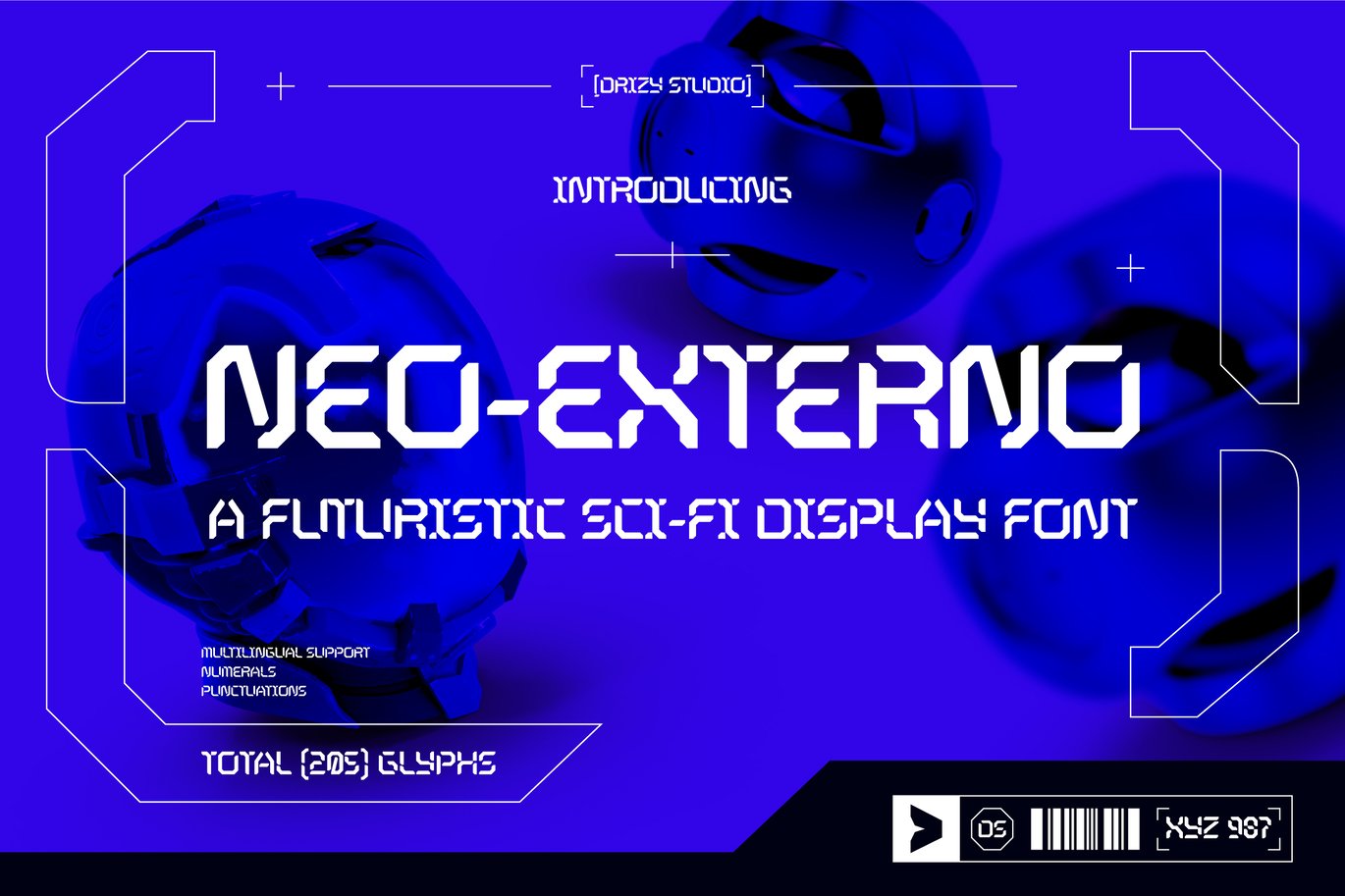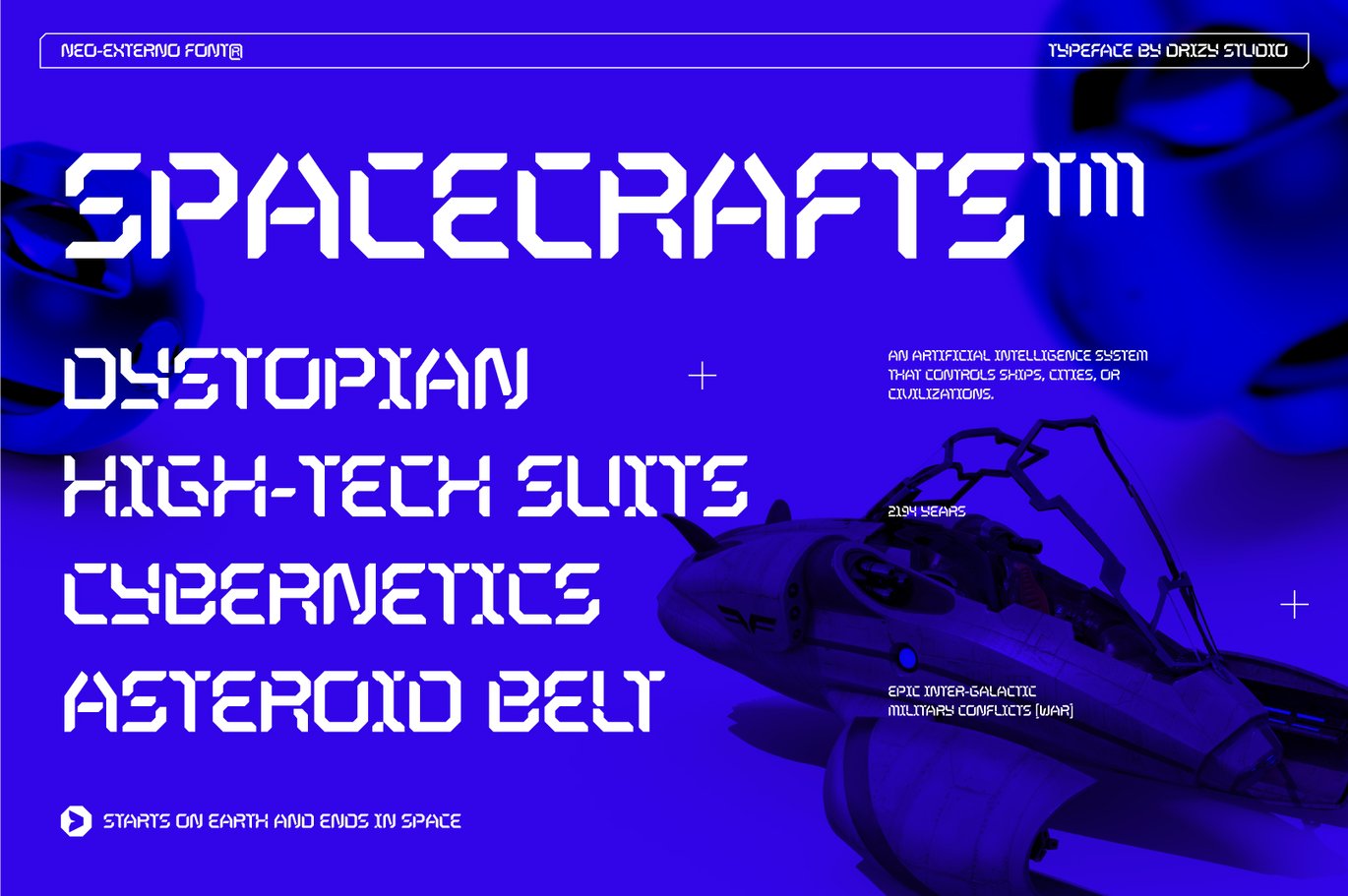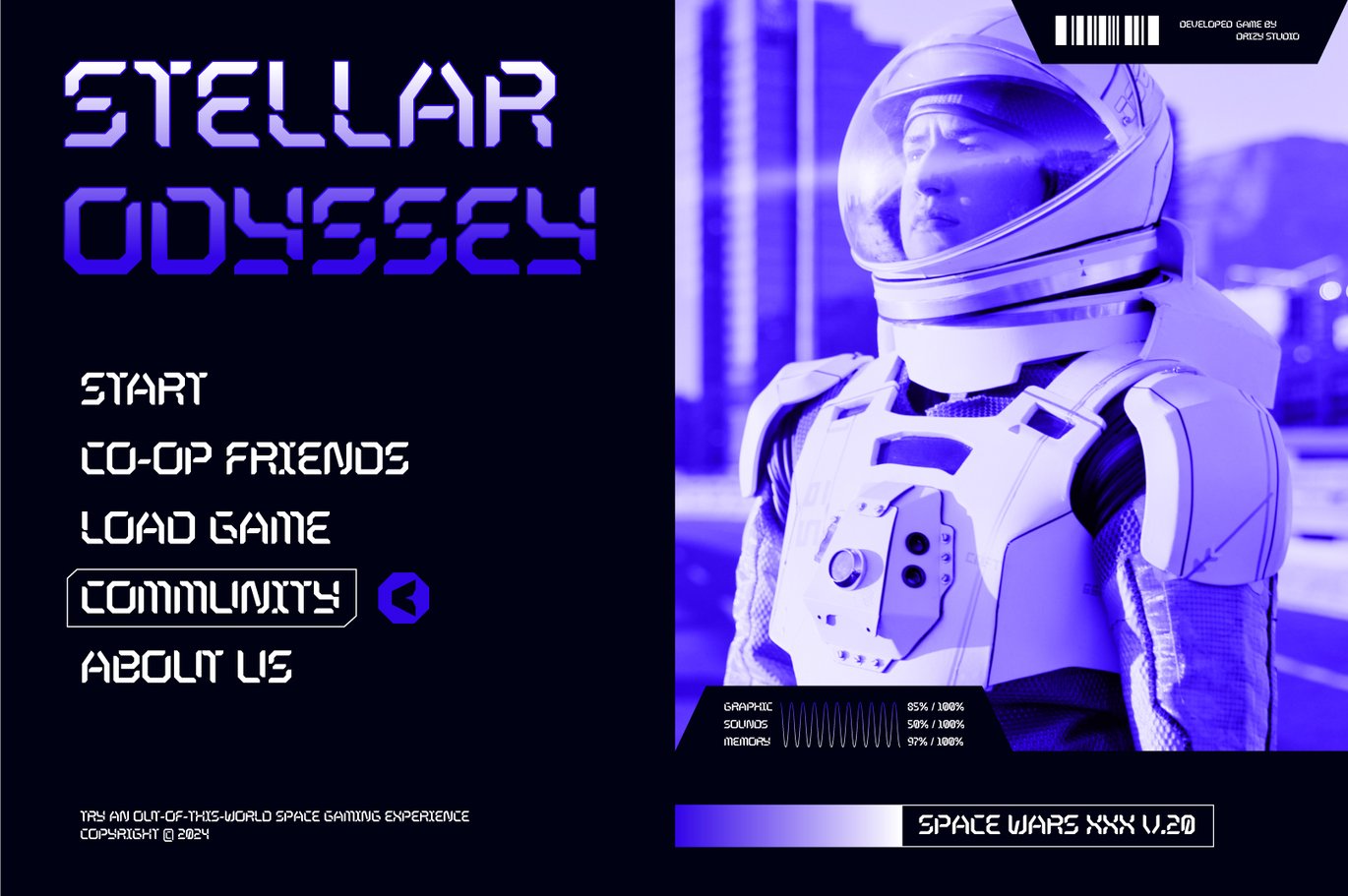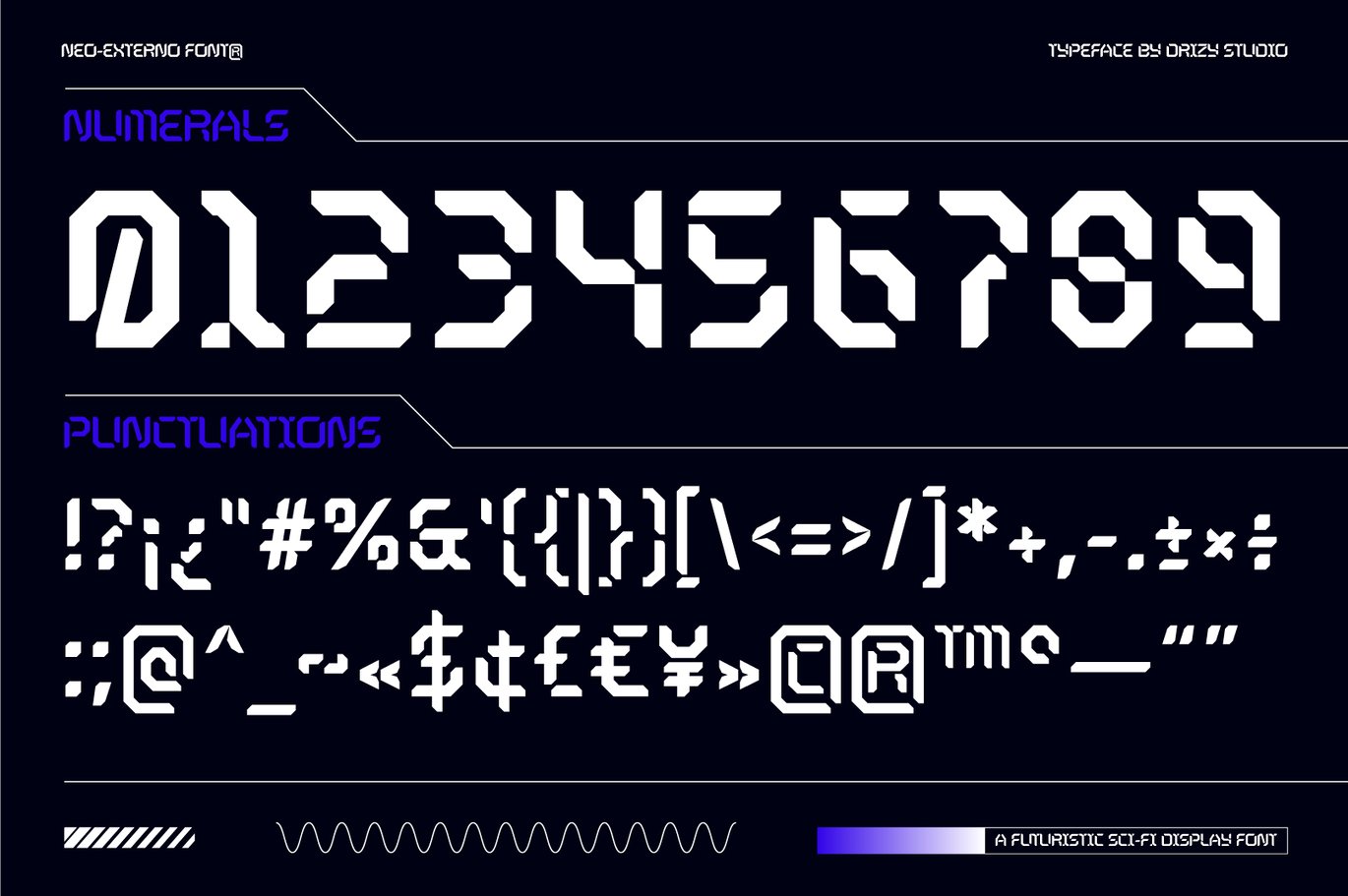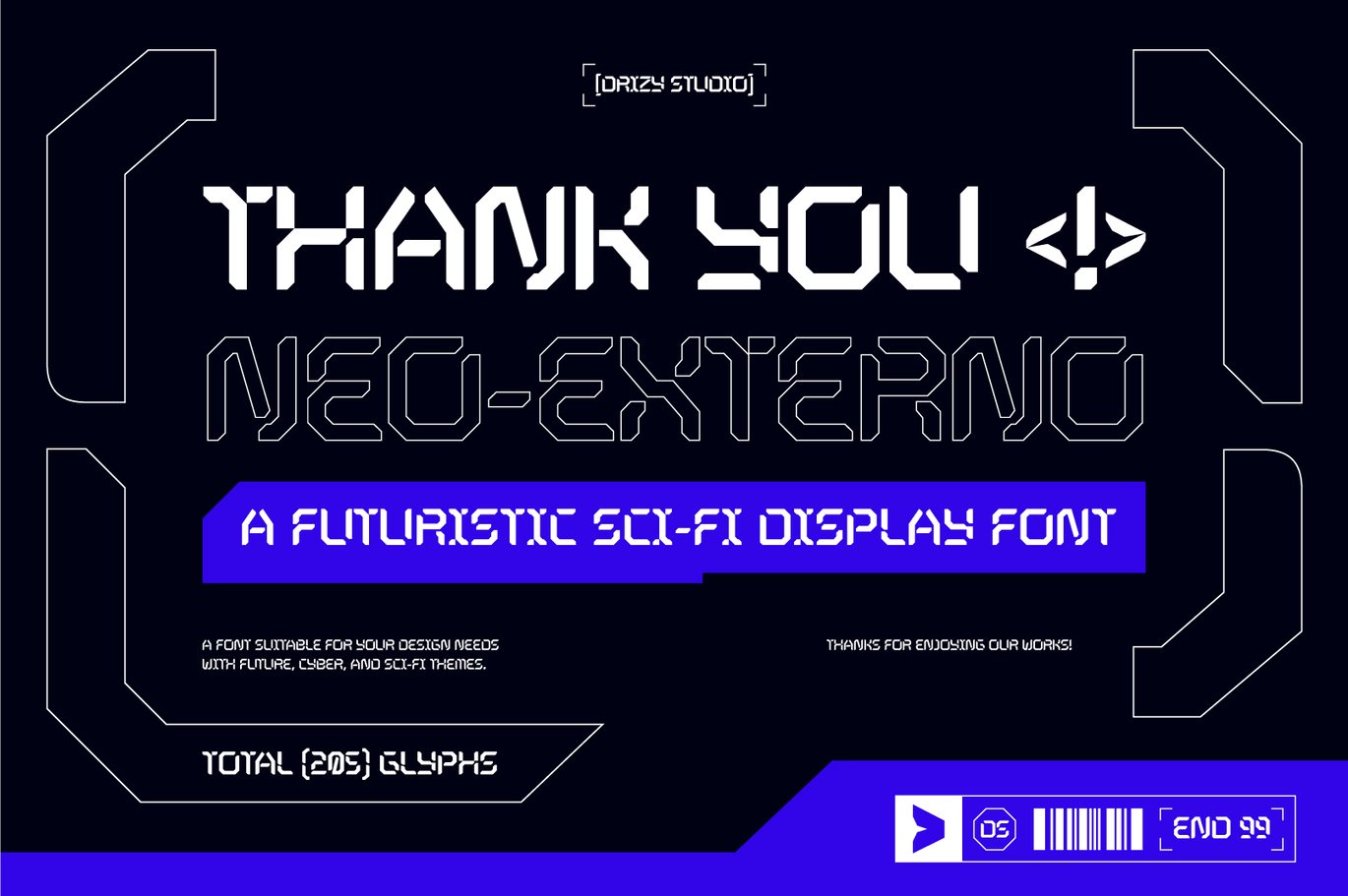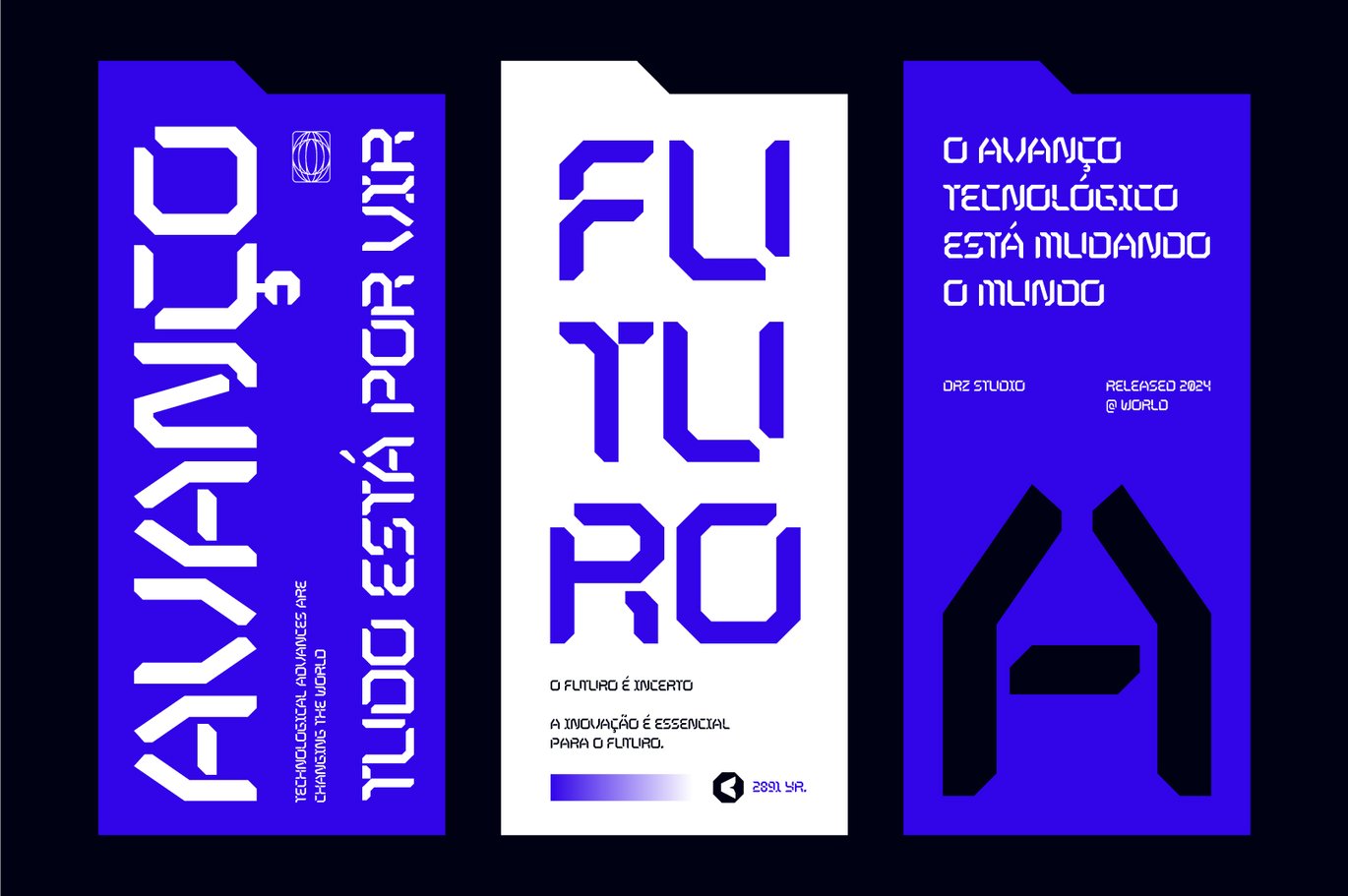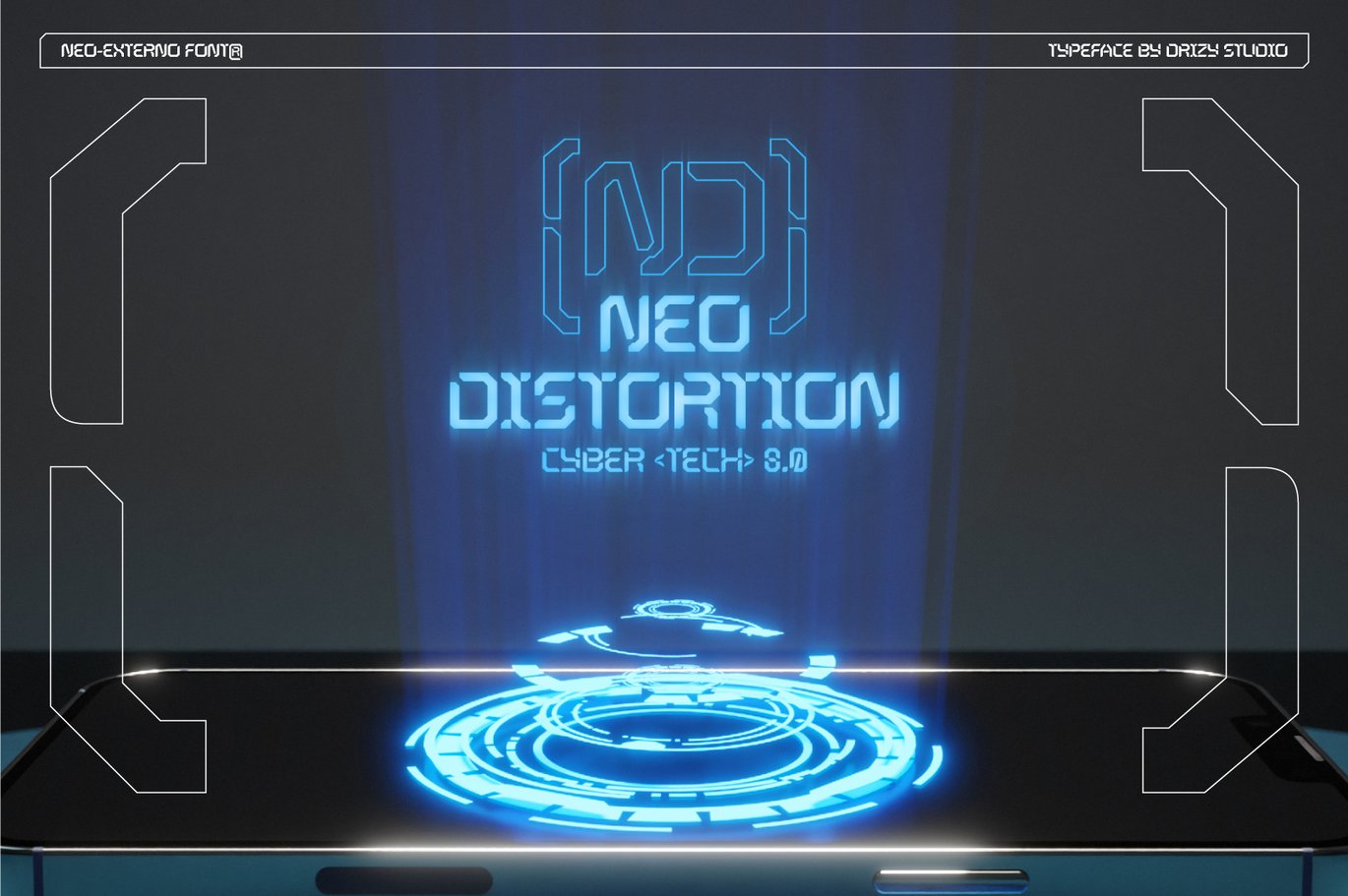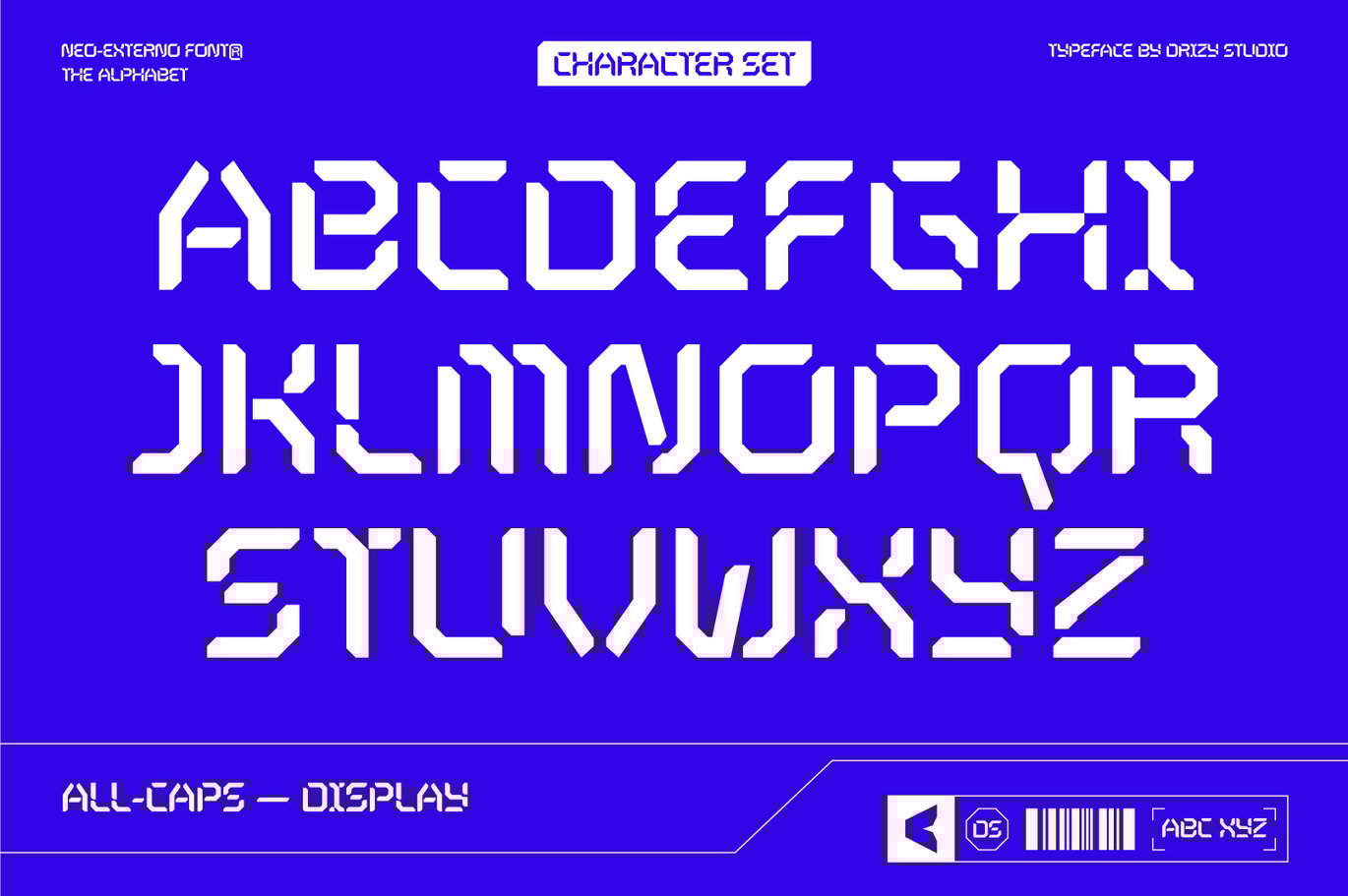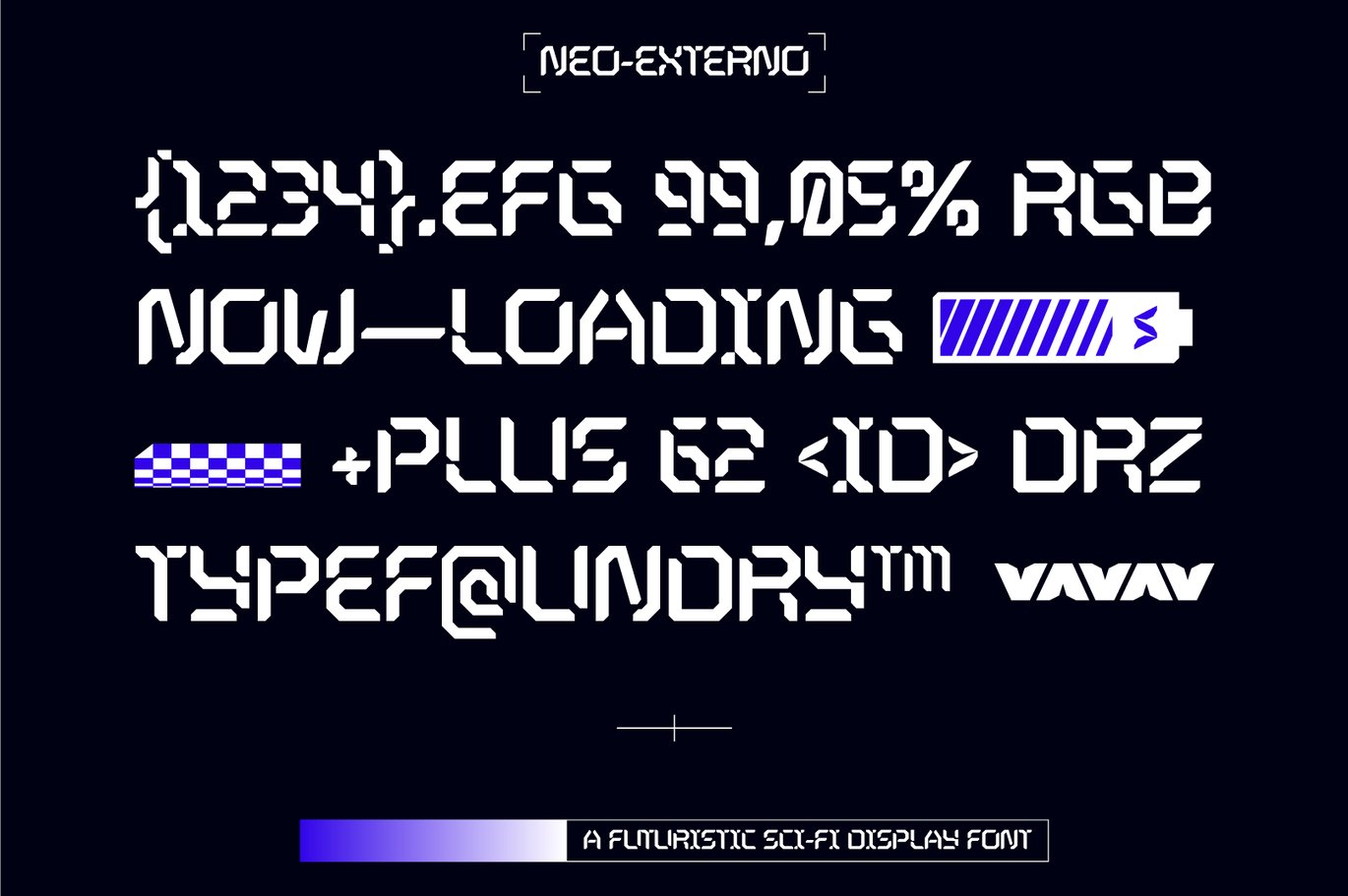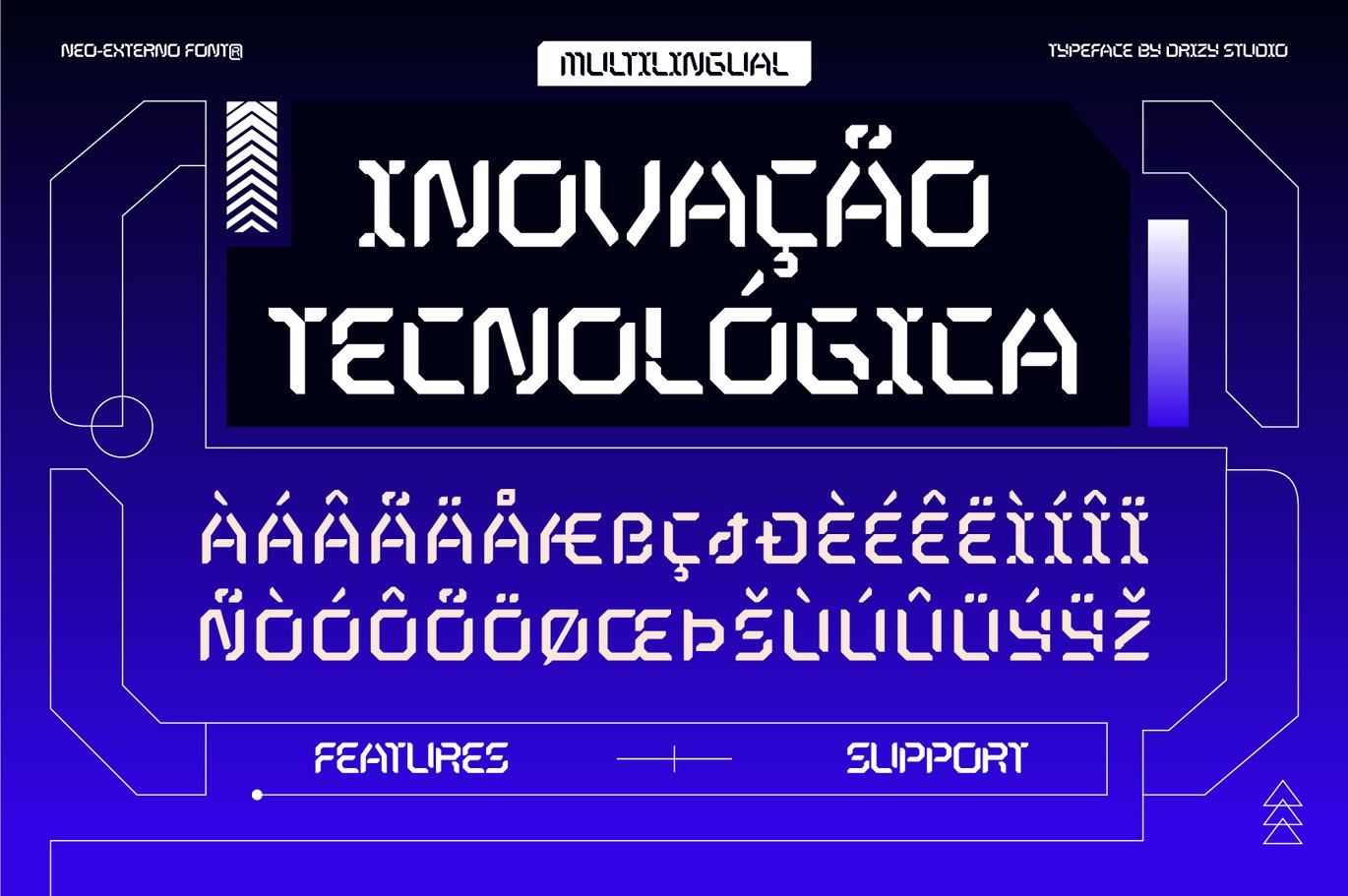
Neo-Externo – Futuristic Sci-Fi Display Font
Neo-Externo is step into the future of typography with a bold and cutting-edge font crafted for the dynamic world of Esports Design and sci-fi enthusiasts. I’s sleek, angular design captures the energy of high-tech battles and intergalactic adventures, making it perfect for gaming logos, team branding, and futuristic projects. Whether you’re creating adrenaline-pumping overlays, immersive posters, or standout merchandise, Neo-Externo brings a modern edge that demands attention. Let your designs radiate the spirit of esports innovation and futuristic brilliance.
Neo-Externo features:
- Character Set (All Caps)
- Punctuation & Numbers